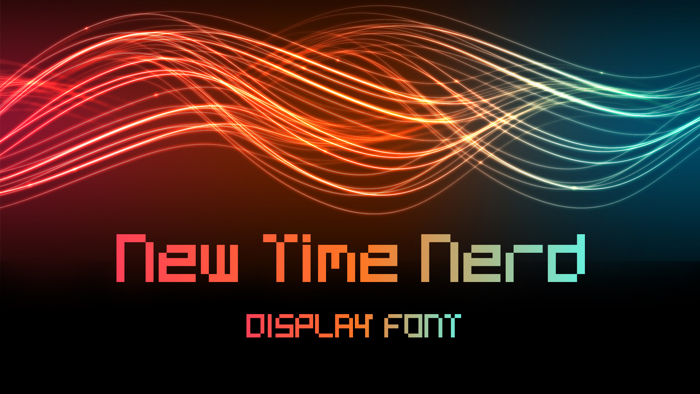
New Time Nerd Font
New Time Nerd Typeface is a modern yet simple typeface suitable for anyone who wants to achieve something effective and appealing. This bold yet stylish typeface is perfect for display purpose such as poster, branding and packaging as well. So, go download now and make something stunning!